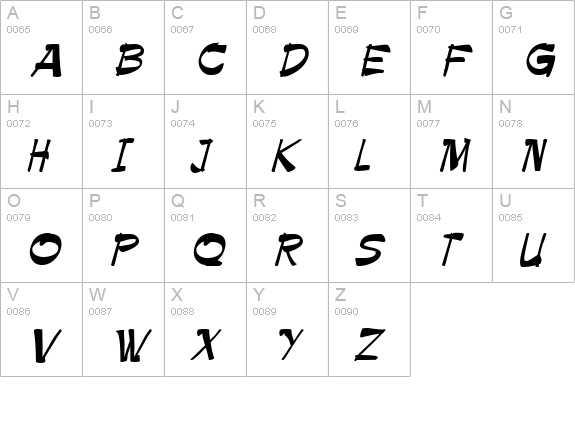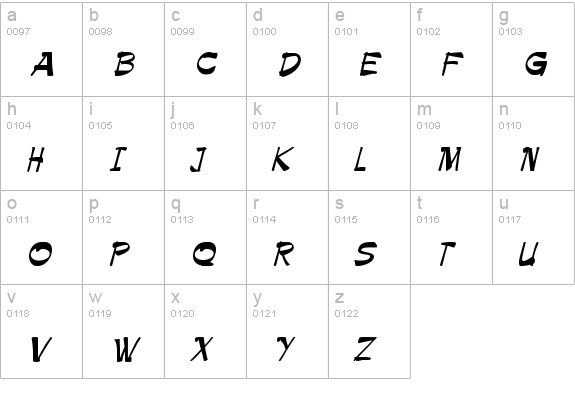
Paintbrush Regular Font Details
Paintbrush Regular is the standard, neutral variant in the Paintbrush typeface family \xE2\x80\x94 well suited to general body text, paragraphs, and standard typographic work.
Paintbrush Regular font is a delightful and versatile typeface that is perfect for adding a touch of creativity to any design project. With its hand-drawn, brush-stroke appearance, this font exudes a sense of authenticity and artistic flair. Whether you're designing a logo, creating a poster, or crafting a unique invitation, Paintbrush Regular is sure to make a lasting impression. This font features a wide range of characters, including uppercase and lowercase letters, numbers, punctuation marks, and special symbols. Its balanced letterforms and smooth curves make it easy to read and pleasing to the eye. The slight irregularities in stroke width give it a unique and organic feel, adding depth and character to your designs. The best part? Paintbrush Regular font is available for free! You can download it at FontsMarket.com, a trusted source for high-quality fonts. This means you can add this beautiful typeface to your collection without breaking the bank. Whether you're a professional designer or a hobbyist, you'll appreciate the value and versatility that Paintbrush Regular brings to your projects. So go ahead, unleash your creativity and elevate your designs with Paintbrush Regular font. Download it for free at FontsMarket.com and let your imagination run wild.